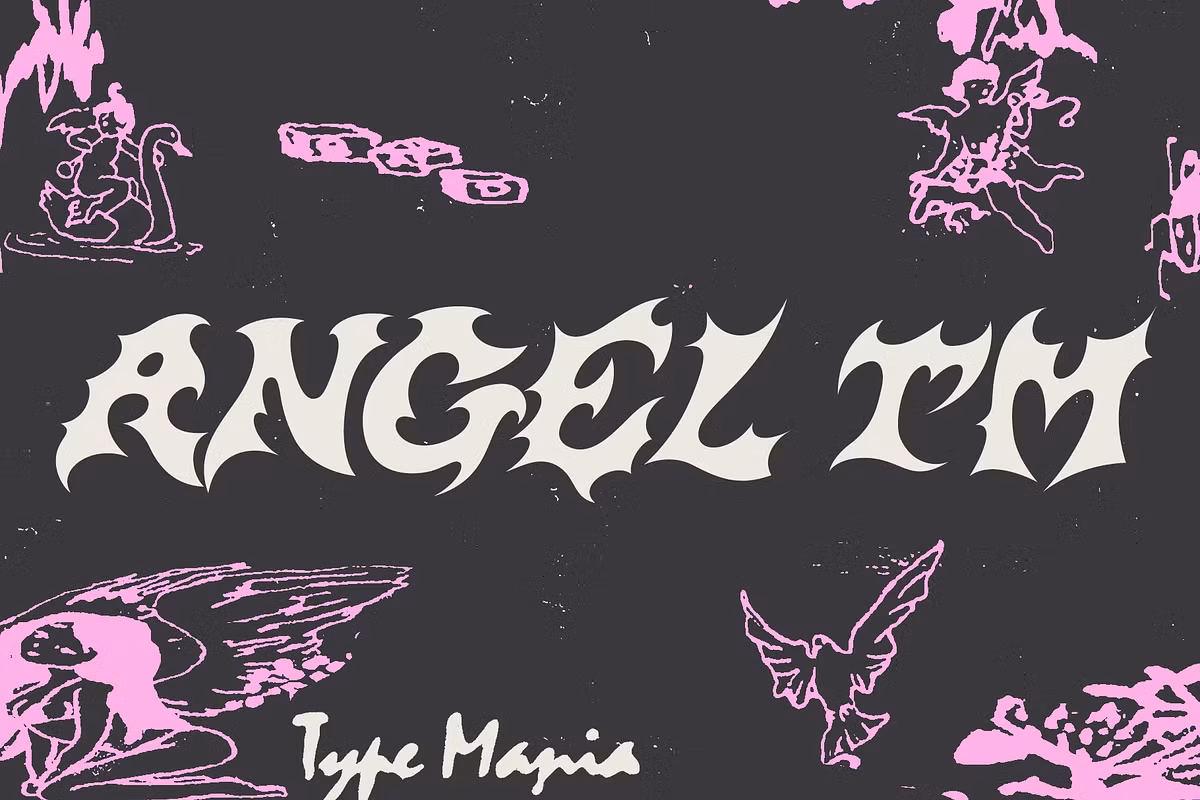
Angel TM – Y2K Tribal Font Free Download
You must purchase this font for commercial use. However, you can download it for free to test its unique tribal-inspired design. Angel TM – Y2K Tribal Font Free Download captures the vibrant spirit and bold aesthetics of early-2000s design trends, perfect for creating attention-grabbing headlines, social media graphics, tattoos, and apparel branding. Its distinctive tribal patterns and edgy Y2K style provide a nostalgic yet modern look, ideal for fashion designers, digital artists, and graphic creators aiming to attract Gen Z and millennial audiences. Incorporate this trendy tribal font into your design projects to evoke retro-futuristic vibes, making your brand stand out with striking visual impact. Angel TM – Y2K Tribal Font Free Download combines excellent readability with a decorative flair, effortlessly drawing viewers' attention and enhancing engagement. Whether designing album covers, event posters, or merchandise, this font delivers a dynamic aesthetic that aligns perfectly with contemporary and throwback themes alike. Experience the creative versatility of Angel TM – Y2K Tribal Font Free Download today, and elevate your design projects with its bold, expressive, and instantly recognizable style.